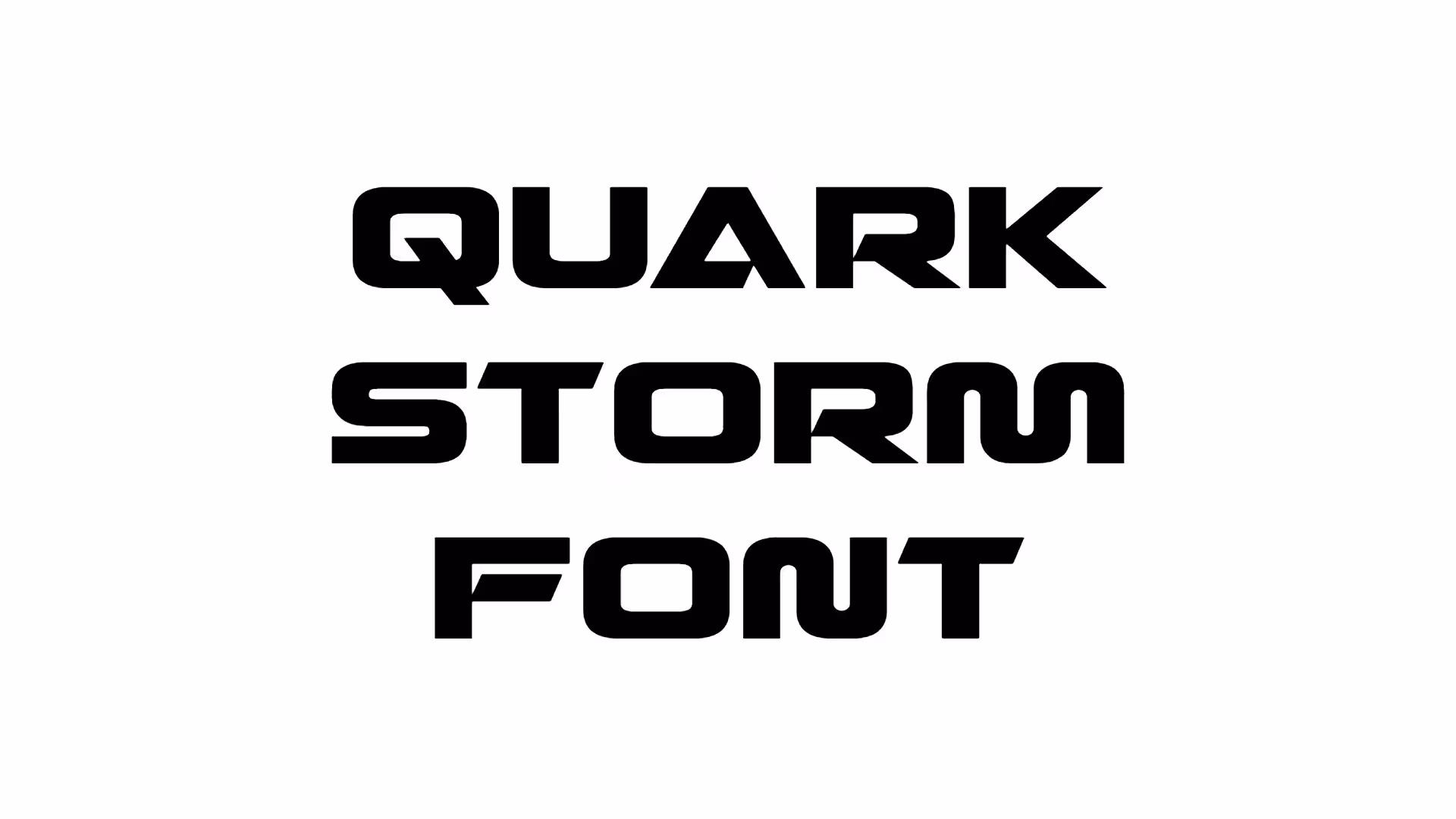
Quark Storm
Quark Storm is a basic font designed by Daniel Zadorozny (2013). It's a no-fuss, easy-to-read font that does its job without shouting for attention. You get seven styles in one free ZIP, and the preview above lets you test each one before you download.
- Designer: Daniel Zadorozny
- Year: 2013 (from the copyright line in the font)
- Category: Basic font
- Font styles: 7 (Regular, Bold, Bold Italic, Condensed, Expanded, Italic and Condensed Italic)
- Glyphs: 221 in the Regular style
Quark Storm covers the full alphabet in upper and lowercase, plus all ten numbers, so you can set names, dates and prices without switching fonts. Everyday marks like &, !, ? and @ are there too. Thanks to its accented letters, it also works for Spanish, French, German, Portuguese and Italian, not just English.
Think of Quark Storm for everyday text, websites and clean logos. Fonts like this are workhorses: use them for body text, captions and anything people need to read quickly. Because the family has more than one style, you can mix them in a single design for headings, subheadings and highlights.
Yes. Quark Storm includes the accented letters needed for Spanish, French, German, Portuguese and Italian, so it works for more than just English.